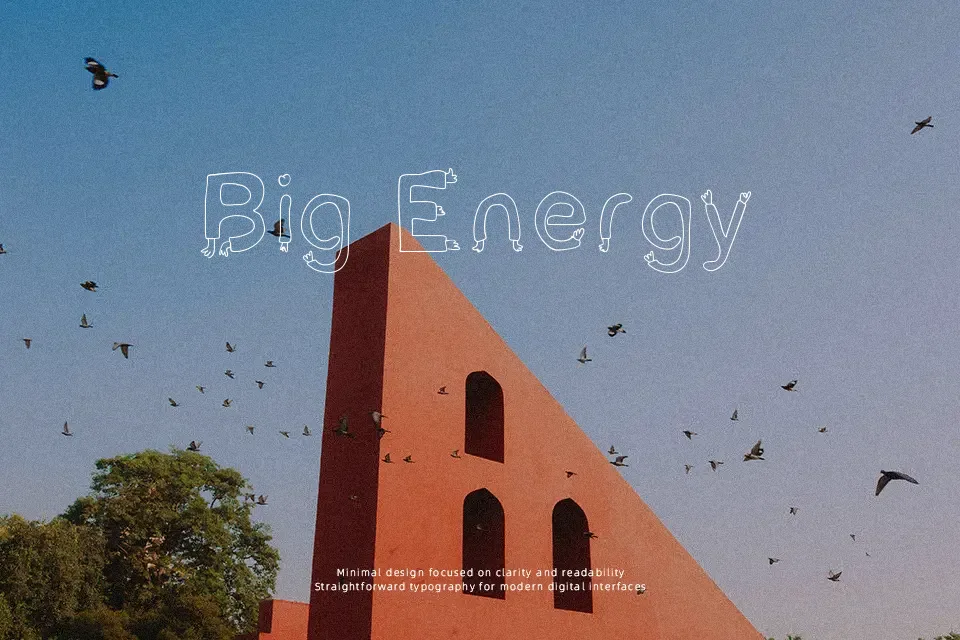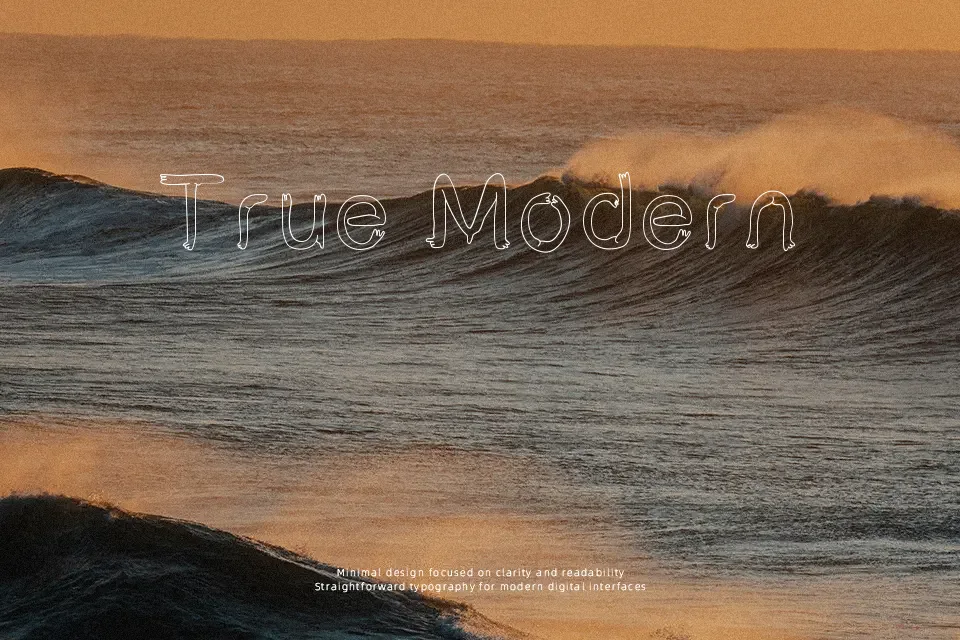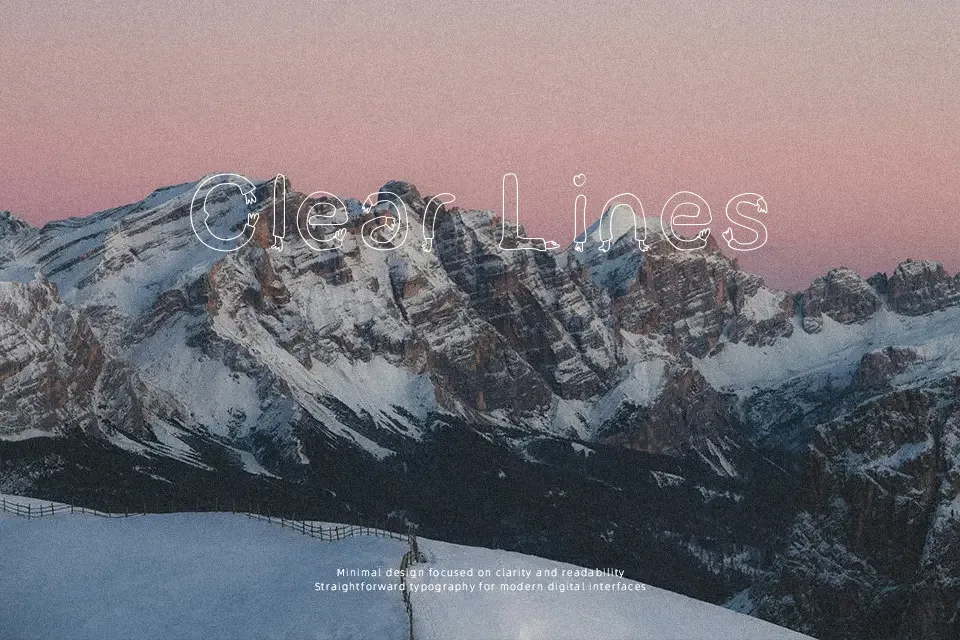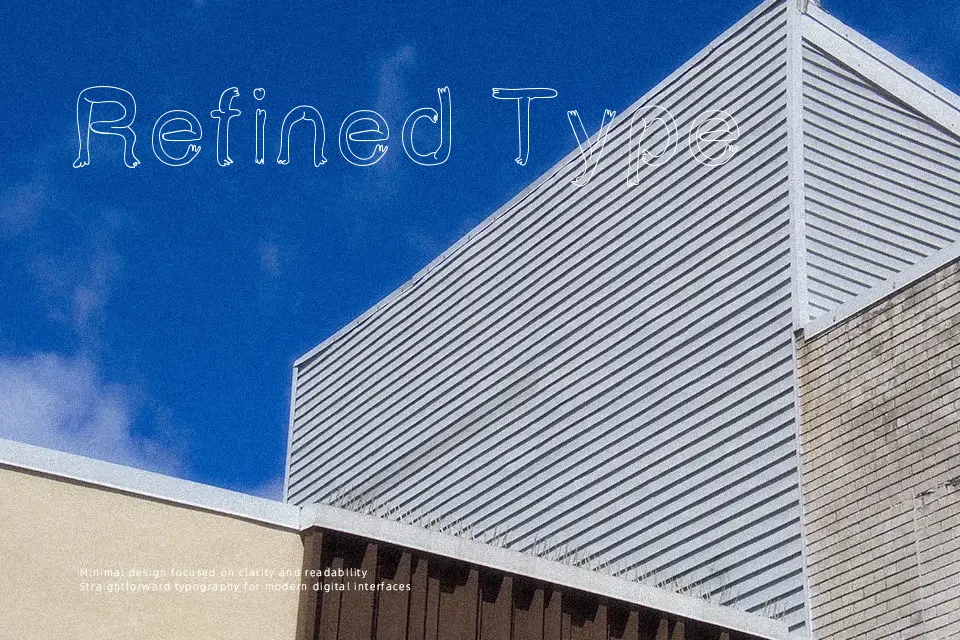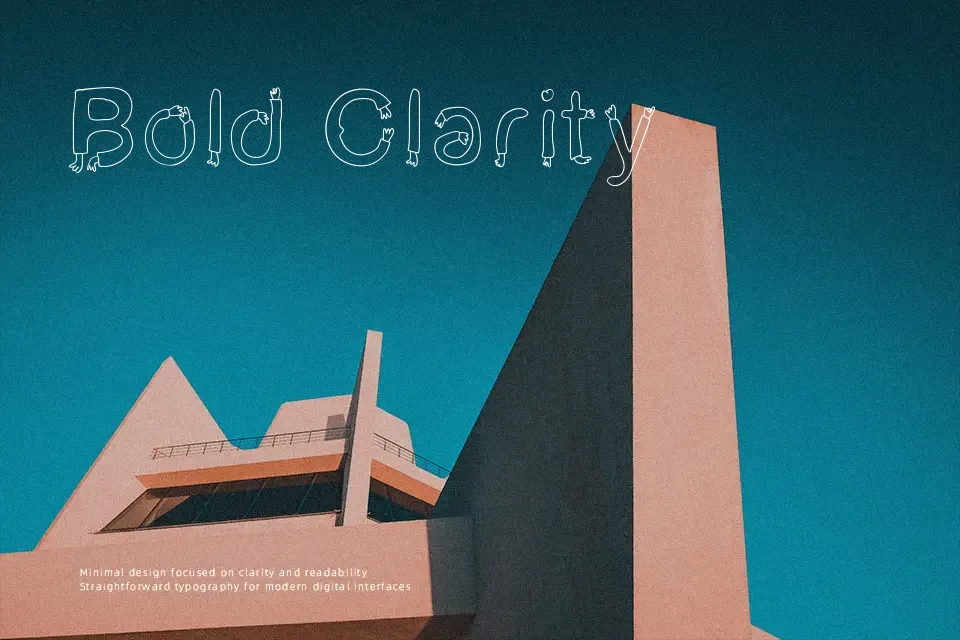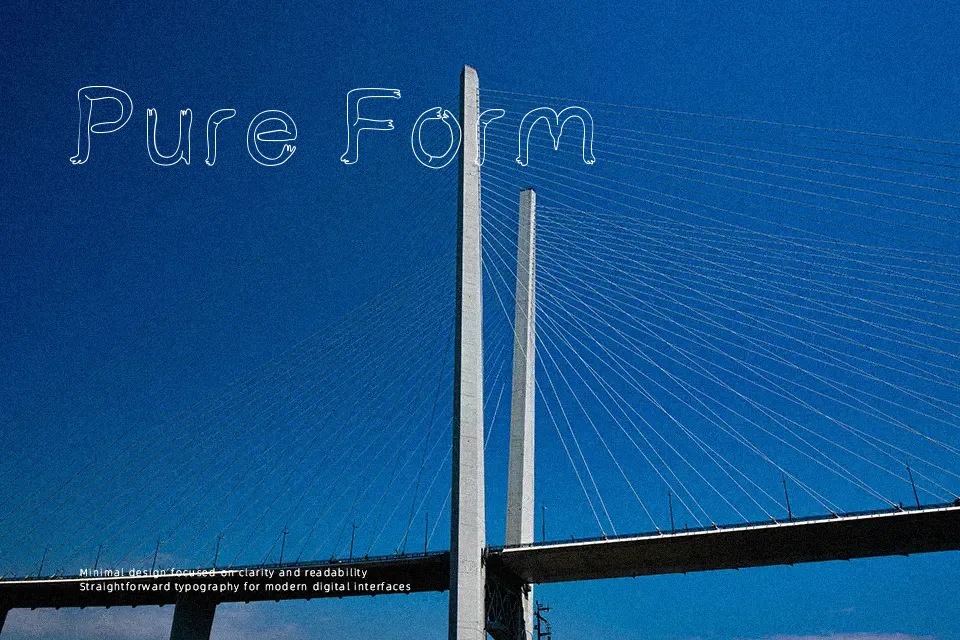
Star Font
Star Font introduces an energetic decorative design built around whimsical letterforms and distinctive geometric silhouettes. The stroke weight remains moderately heavy throughout, featuring rounded corners and stylized joins that give each glyph an unmistakable handcrafted presence. Character spacing is relatively wide to accommodate unusual outline details, while proportion variations between uppercase and lowercase create an animated visual rhythm. Because of these intricate decorative shapes, readability is highest when displayed at large headline sizes. In contrast, small text captions cause the unique internal contours to blend together, reducing letter recognition. This typeface functions effectively for merchandise graphics, quirky packaging, and greeting cards.
children’s event posters, toy packaging, merchandise graphics, greeting card headlines
continuous paragraph reading, corporate financial reports, small interface labels, dense editorial layouts
Perfect for branding, headline, and kids, with a artistic and cartoon style.